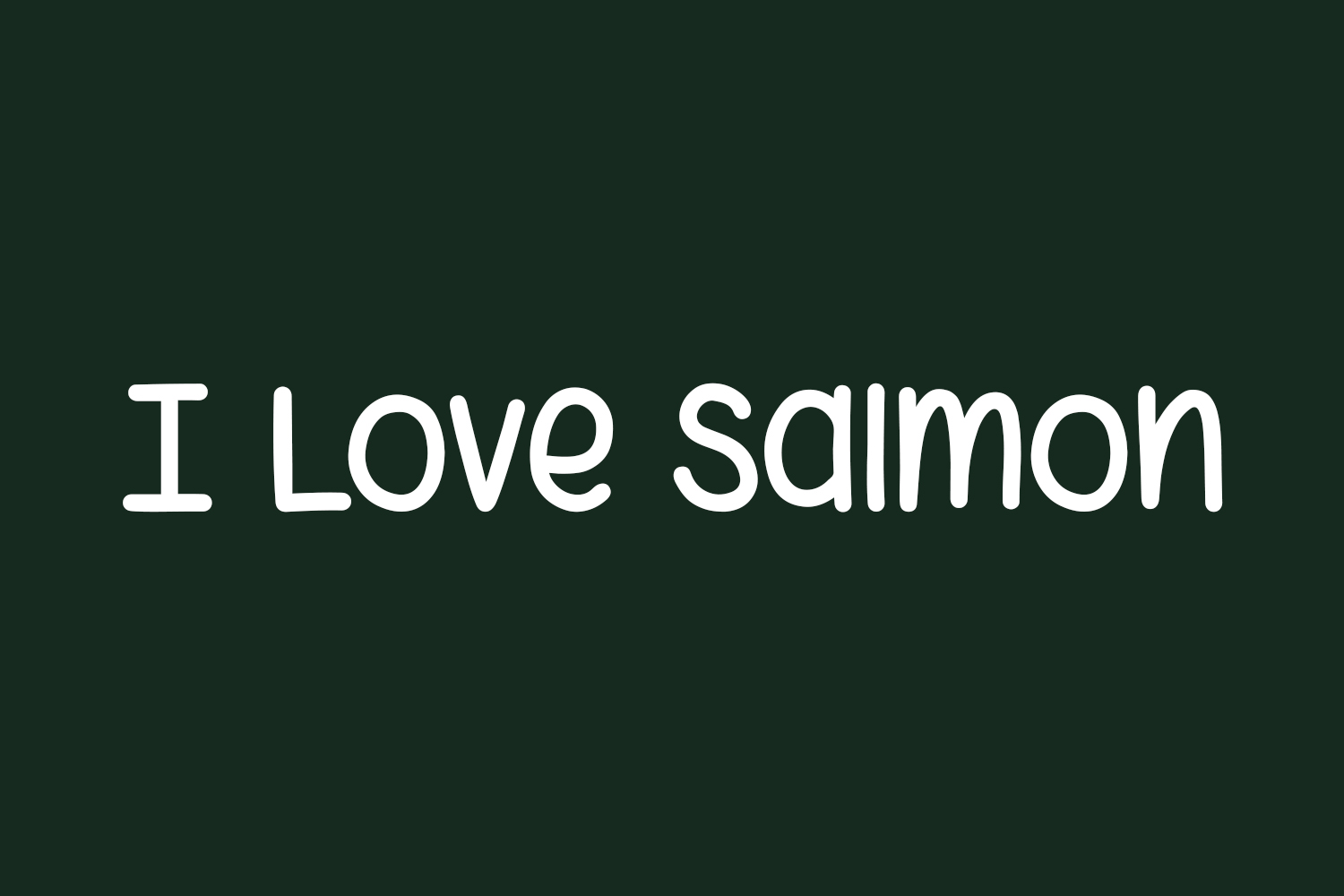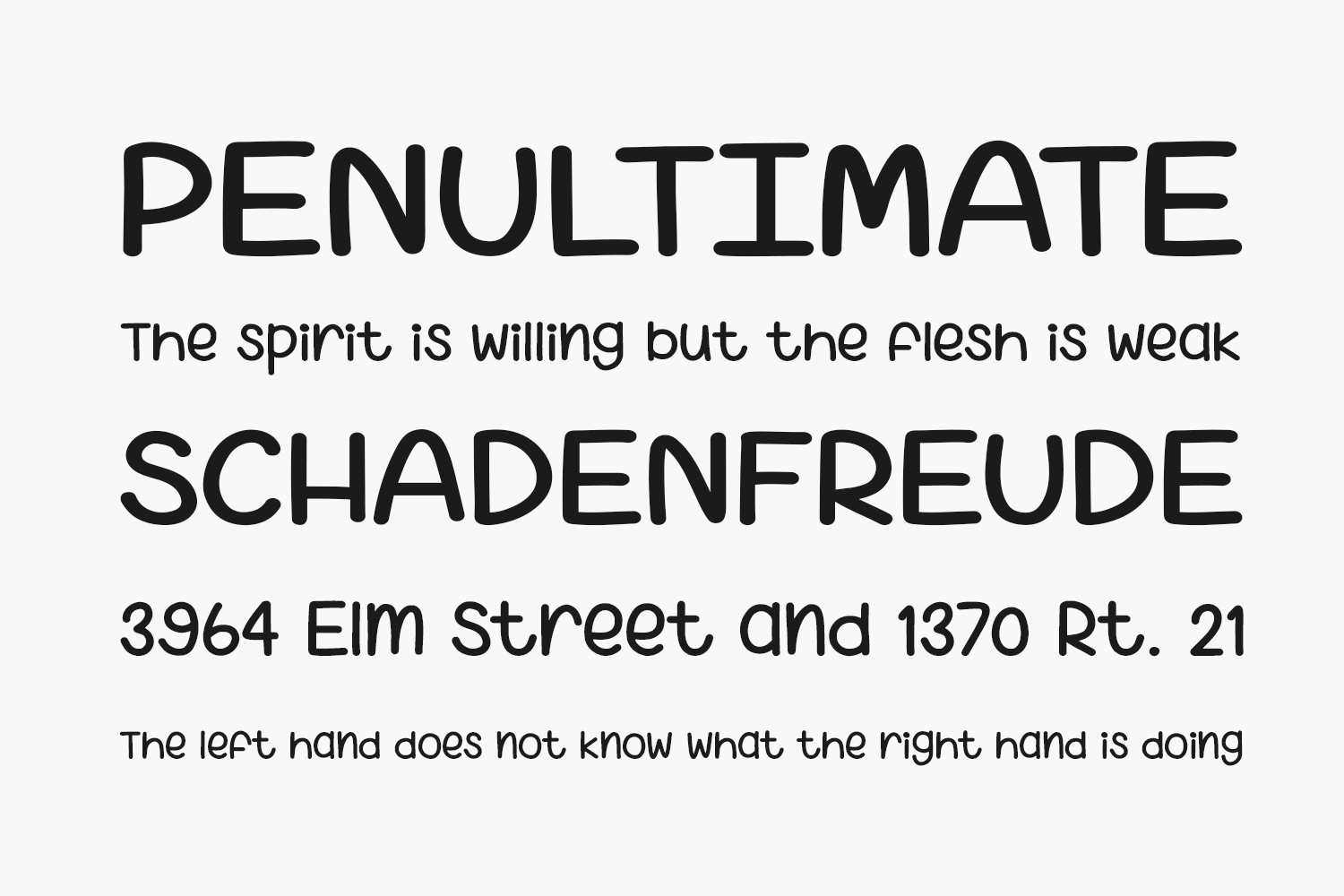
I Love Salmon Free Font is a friendly handwritten font. Its playful and a little bit quirky style makes this font the perfect fit for your social media posts, posters, cards, and cute greeting cards. I Love Salmon Free Font was designed by AquariiD and is free for personal use only. Please purchase the full version for commercial use.